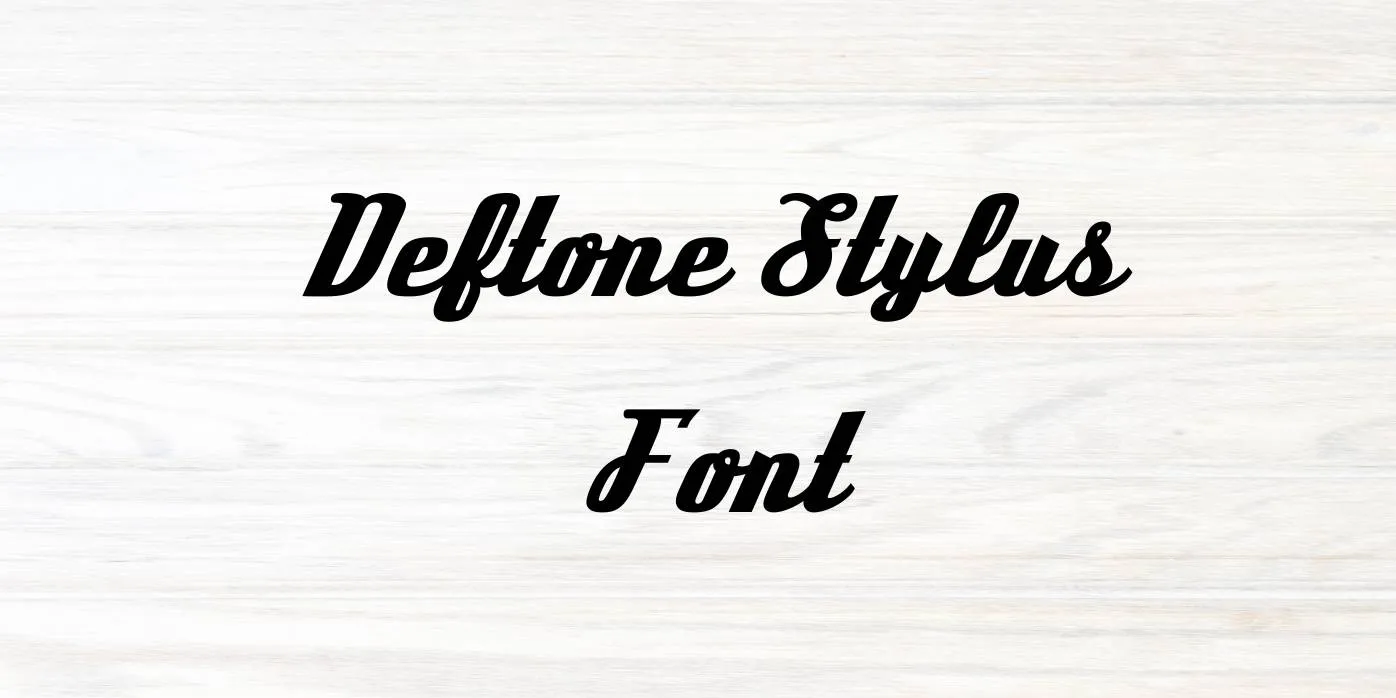
Deftone Stylus Font
The Deftone Stylus Font is a script typeface that was created in the year 2000 by artist and graphic designer Joshua M. Smith. The font was inspired by the hand-lettered logos and street art of the early hip-hop and graffiti scenes in New York City. The Font has a unique style that is a mix of both calligraphy and street art.
The font is perfect for creating headlines, logos, and other graphics with an urban feel. If you are looking for a font with an urban edge, then the Font is the perfect choice for you. The style of typeface is much similar to the tahoma font with the same connected letterforms and high-quality graphics you can try for your valuable designs.